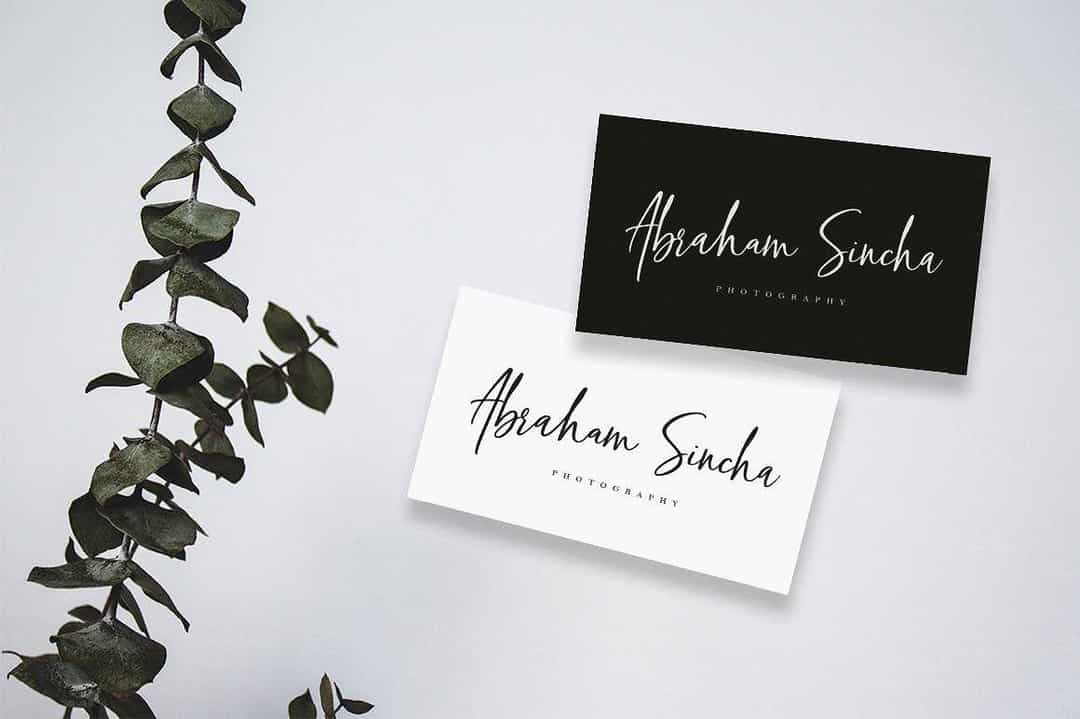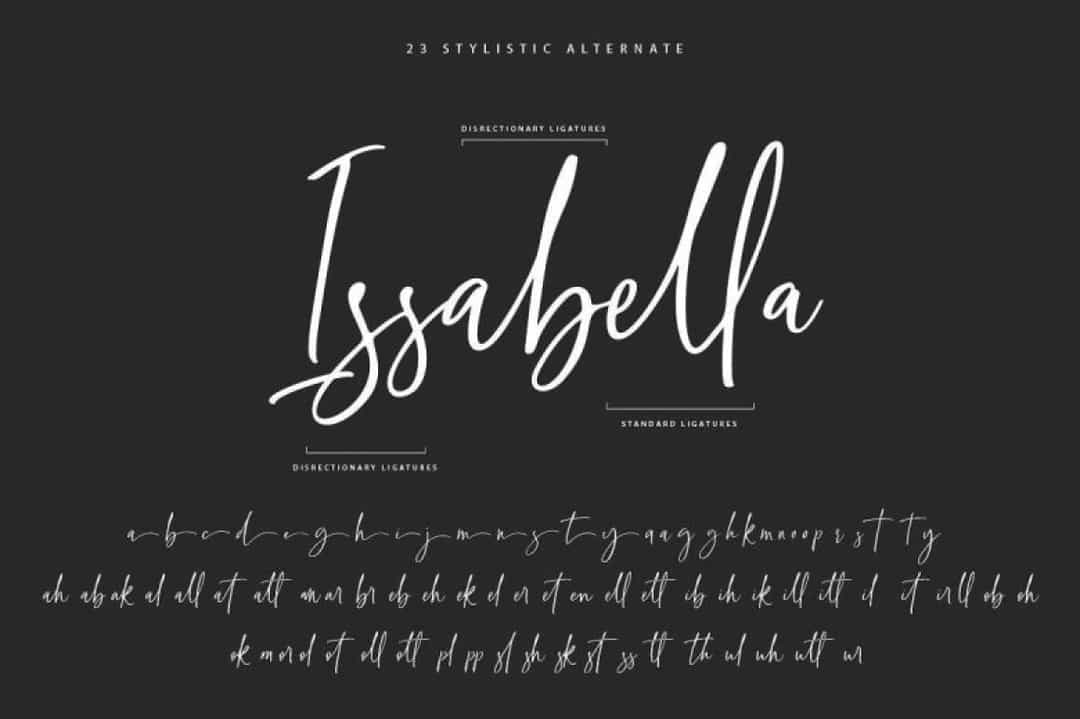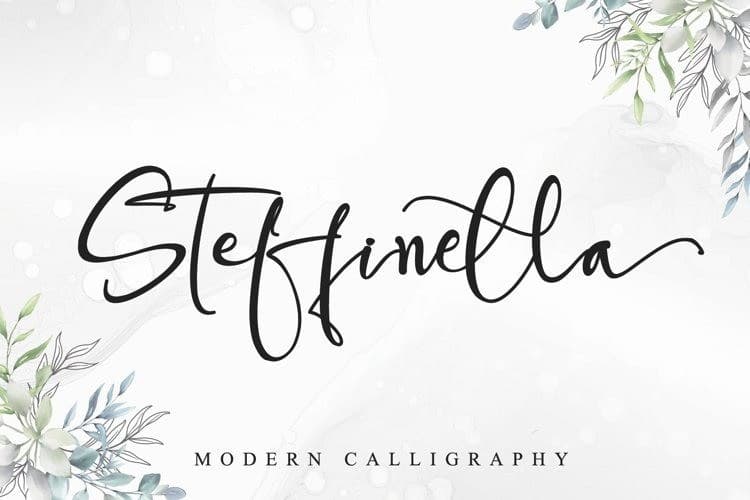
Begin every day on the right note, by waking with a handwritten copy of a script – Light Olifia was designed and published by sizimon and is fluid, feminine, chic and sociable which makes it perfect for fashion-related websites, e-commerce stores, and fashion and trend blogs as well as for any business that would like to look more stylish.